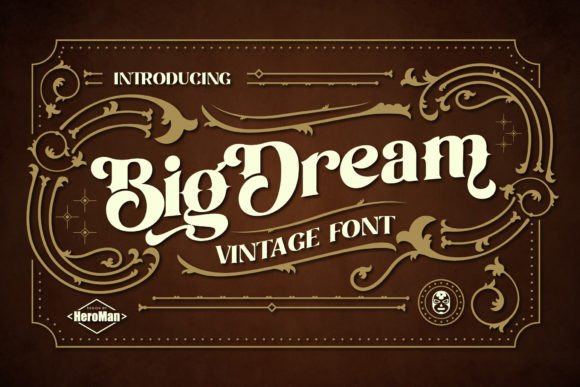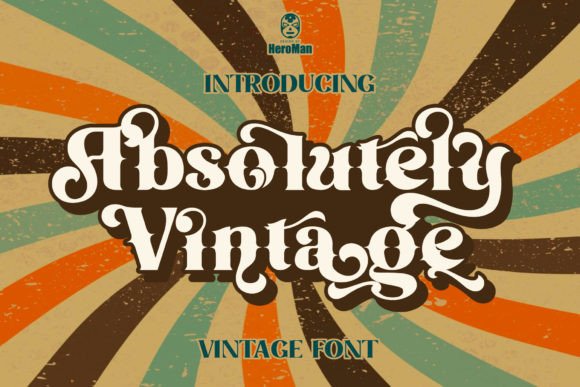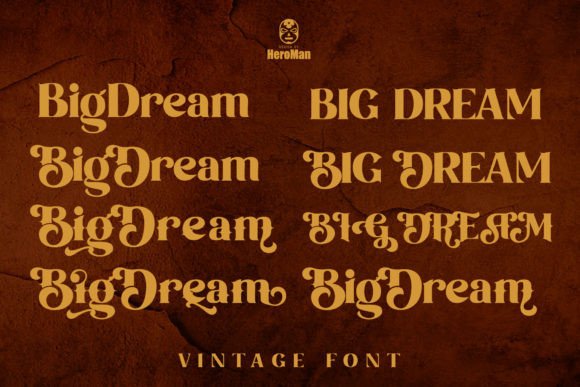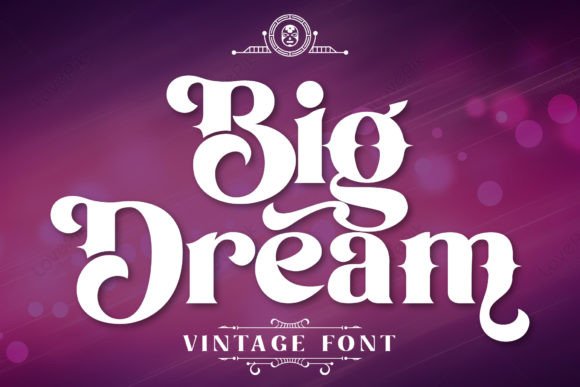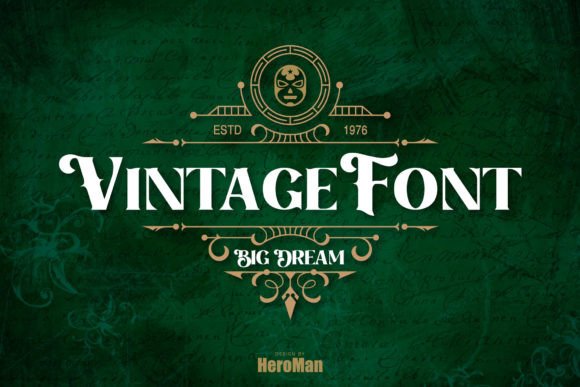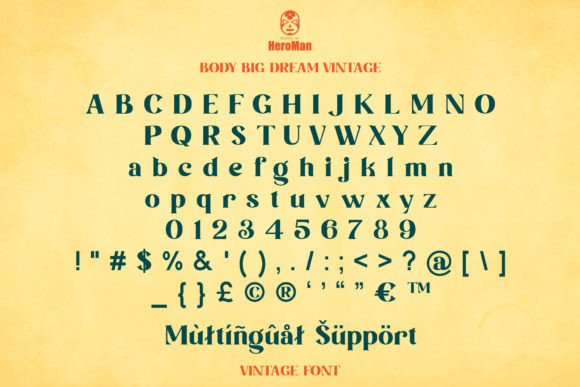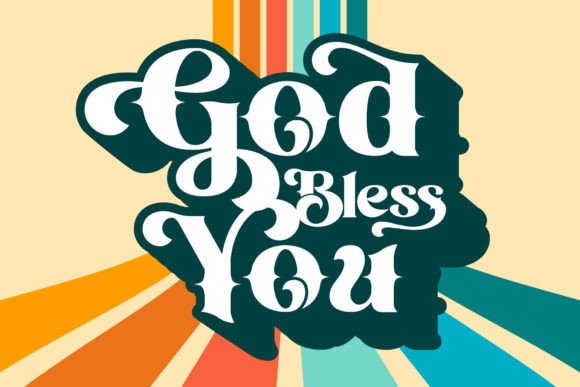
Introducing Big Dream Vintage Font: The Ultimate Retro Display Font
Are you looking for a font that adds a touch of nostalgia and playfulness to your designs? Look no further than Big Dream Vintage Font! This cool, retro, and fun display font is perfect for headlines, magazines, logos, branding, and so much more. In this article, we’ll dive into the features and benefits of Big Dream Vintage Font, and explore how it can elevate your design projects.
What is Big Dream Vintage Font?
Big Dream Vintage Font is a unique and eye-catching display font that is inspired by the classic typography of the past. Its retro vibe and fun personality make it perfect for designers and crafters who want to add a touch of nostalgia to their work. Whether you’re creating a logo, magazine headline, or branding materials, Big Dream Vintage Font is sure to turn heads.
Key Features of Big Dream Vintage Font
- PUA Encoded: Big Dream Vintage Font is PUA (Private Use Area) encoded, which means you can access all the glyphs and ligatures with ease. This makes it simple to use and customize the font to suit your design needs.
- Retro and Fun: Big Dream Vintage Font has a cool, retro vibe that’s perfect for designs that require a playful touch.
- Display Font: This font is specifically designed as a display font, making it perfect for headlines, titles, and other large-format text.
- Versatile: Big Dream Vintage Font can be used for a wide range of design projects, including logos, magazines, branding, and more.
Benefits of Using Big Dream Vintage Font
So why choose Big Dream Vintage Font for your design projects? Here are just a few benefits of using this amazing font:
- Adds a Touch of Nostalgia: Big Dream Vintage Font has a unique retro vibe that adds a touch of nostalgia to any design.
- Stand Out from the Crowd: With its bold and playful personality, Big Dream Vintage Font is sure to make your designs stand out from the crowd.
- Easy to Use: The PUA encoding of Big Dream Vintage Font makes it simple to access all the glyphs and ligatures, making it easy to use and customize.
- Perfect for Designers and Crafters: Whether you’re a professional designer or a crafter, Big Dream Vintage Font is perfect for anyone looking to add a touch of personality to their designs.
How to Use Big Dream Vintage Font
Using Big Dream Vintage Font is easy! Here are a few tips to get you started:
- Headlines and Titles: Use Big Dream Vintage Font for headlines and titles to add a touch of personality to your designs.
- Logos and Branding: Big Dream Vintage Font is perfect for logos and branding materials, adding a unique and memorable touch to your brand.
- Magazines and Editorial Design: Use Big Dream Vintage Font to add a touch of nostalgia and playfulness to your magazine and editorial designs.
In conclusion, Big Dream Vintage Font is a unique and versatile display font that’s perfect for designers and crafters looking to add a touch of nostalgia and playfulness to their designs. With its PUA encoding, retro vibe, and fun personality, Big Dream Vintage Font is sure to elevate your design projects and make them stand out from the crowd. So why wait? Download Big Dream Vintage Font today and start creating amazing designs!